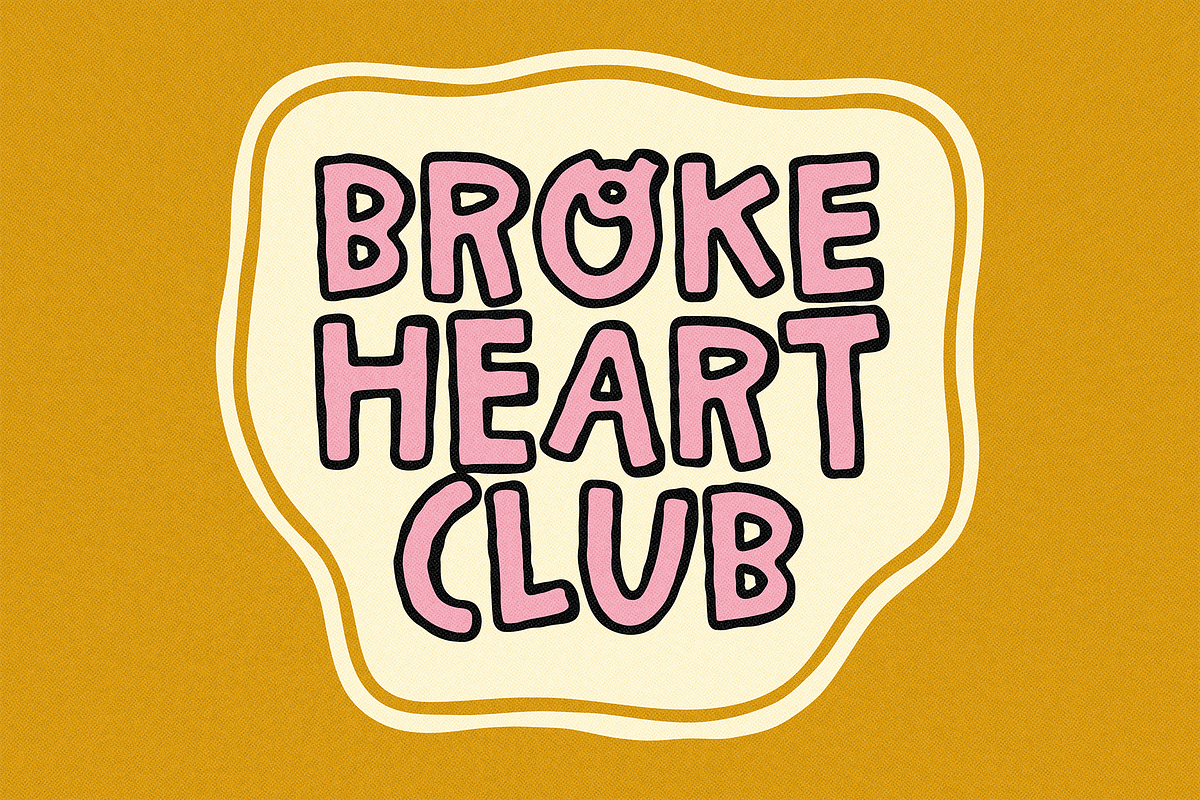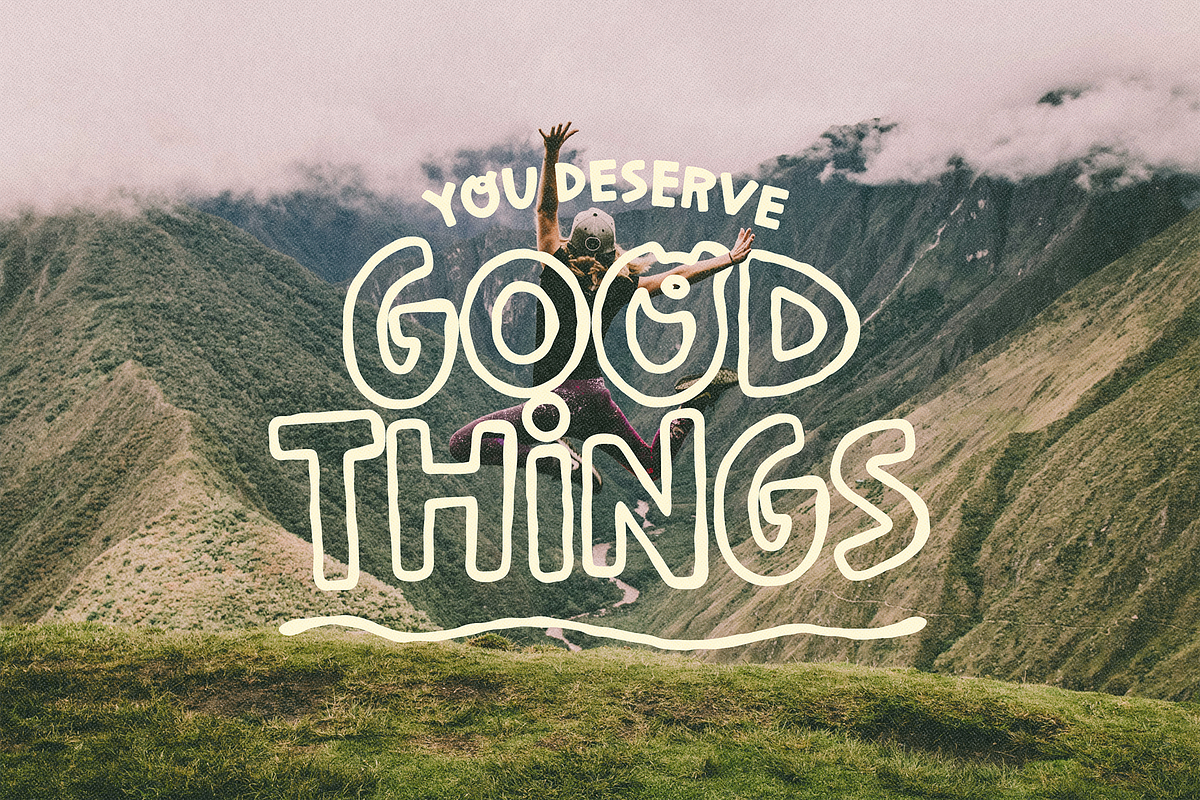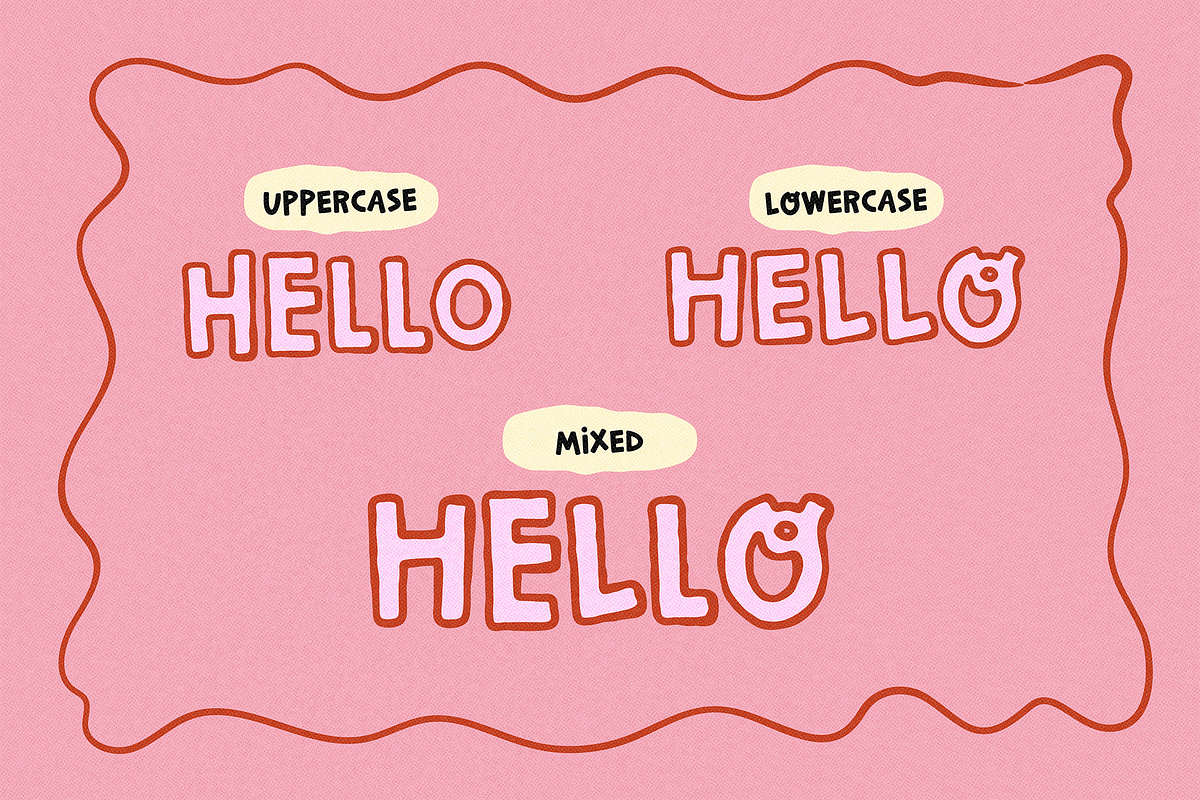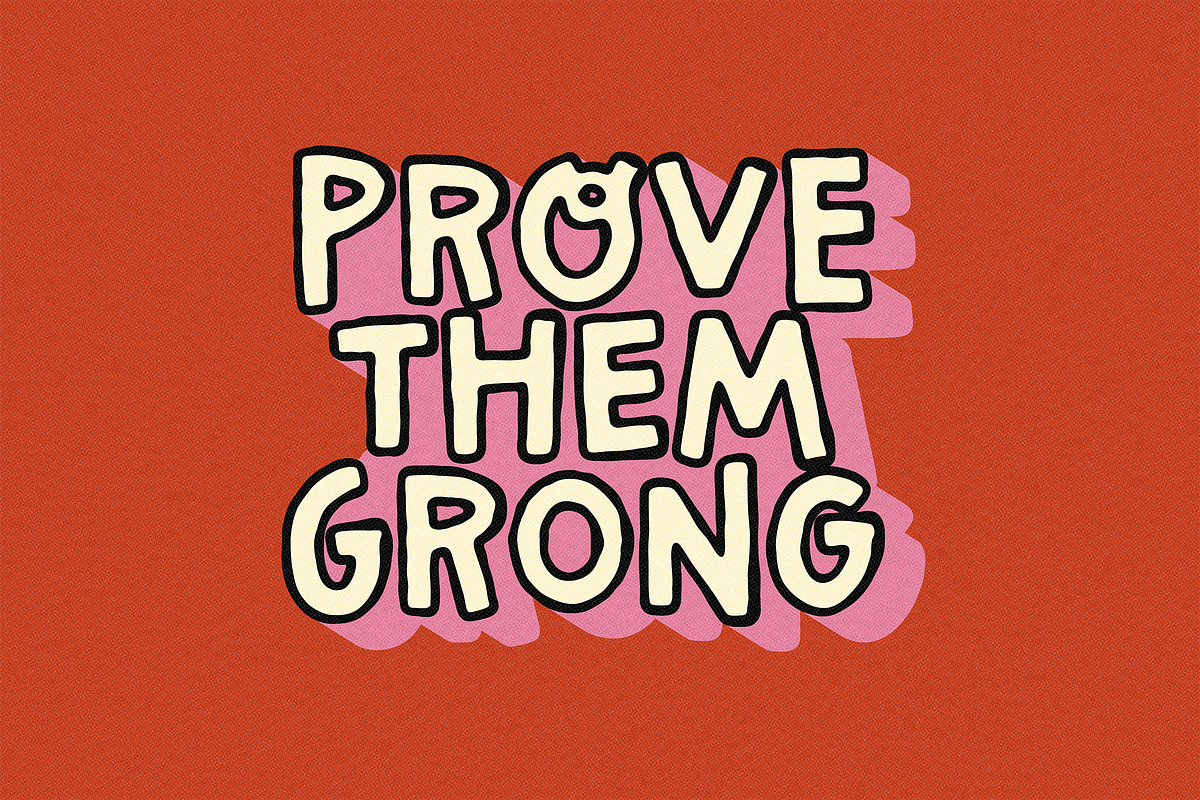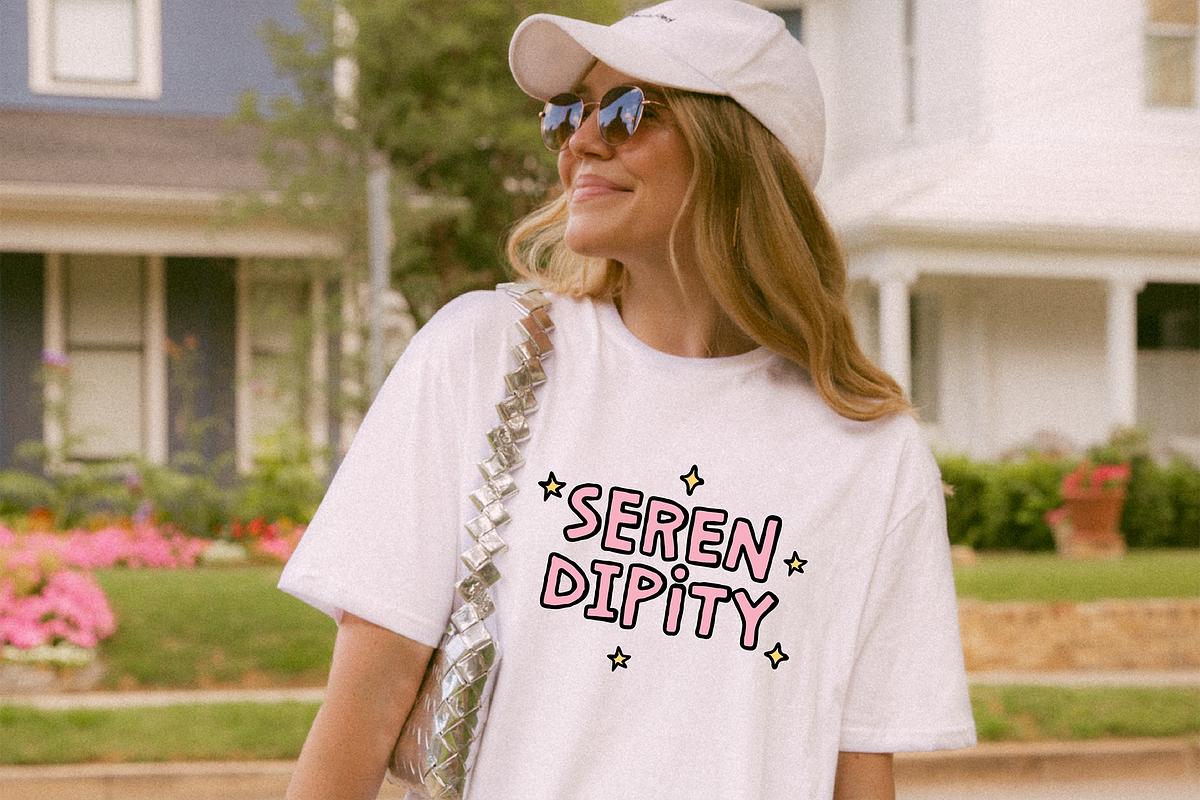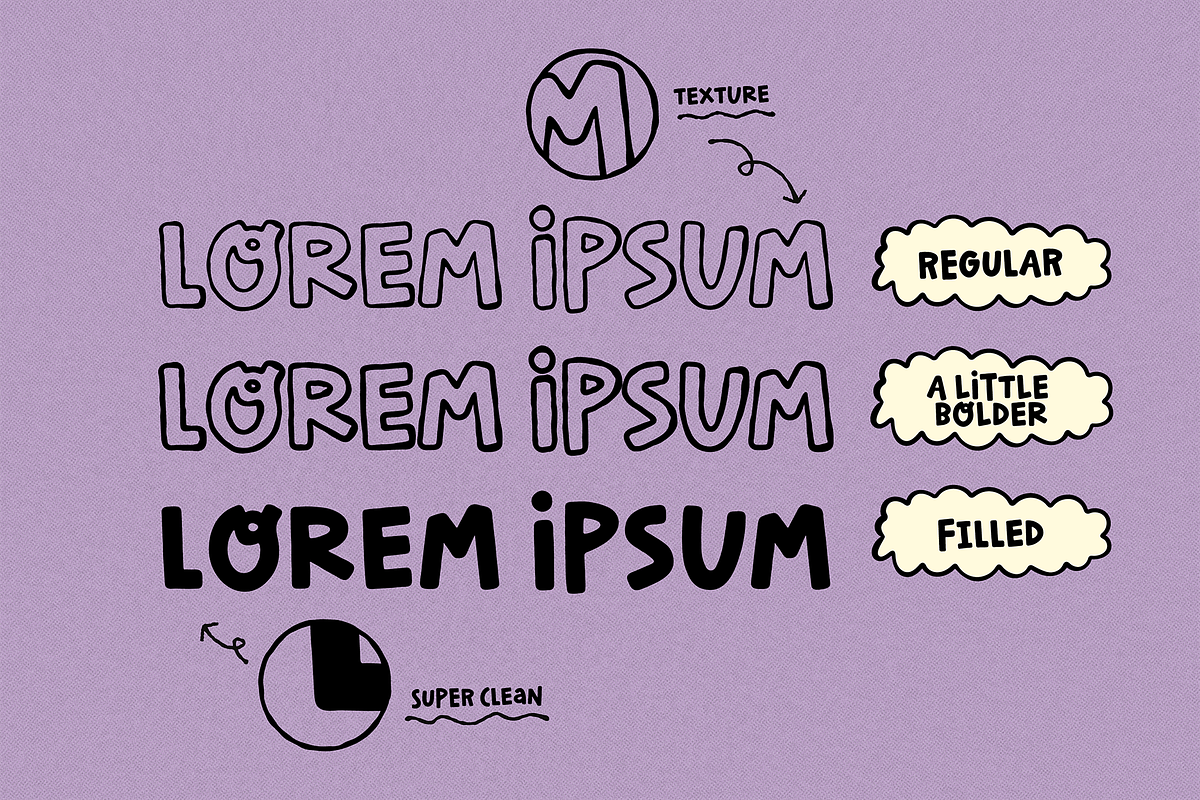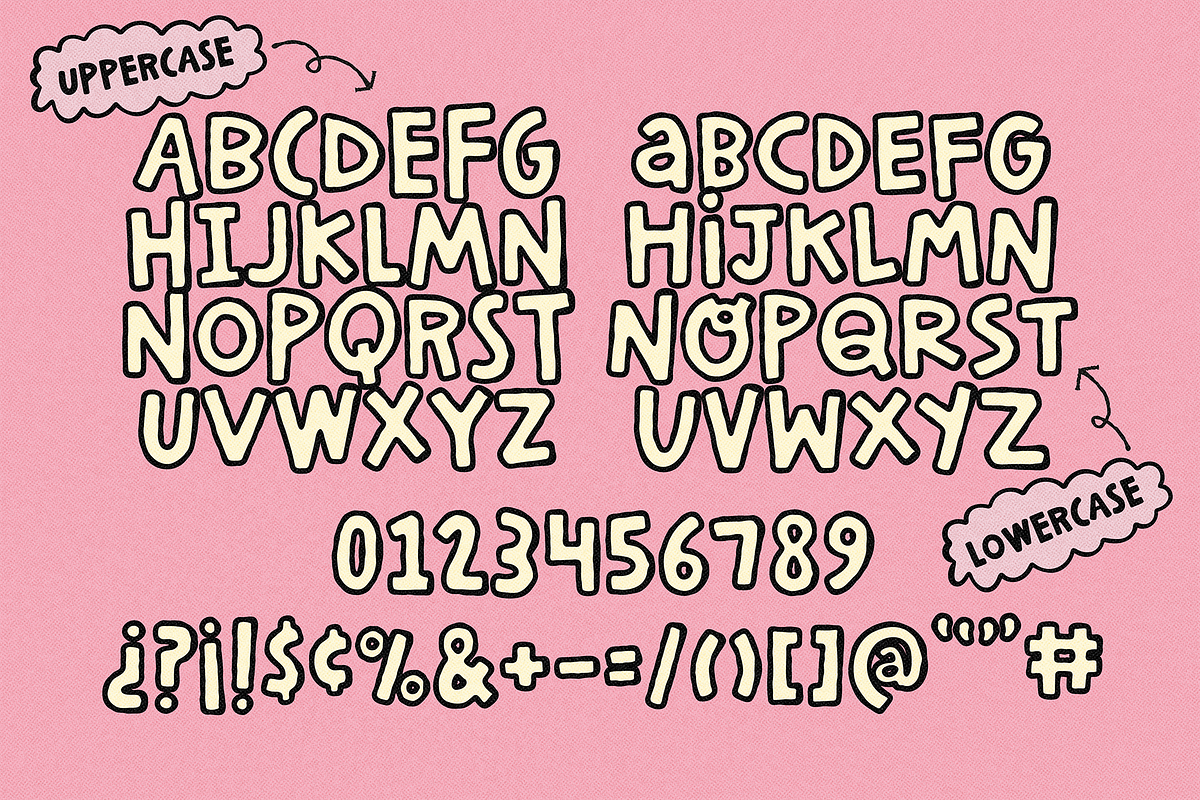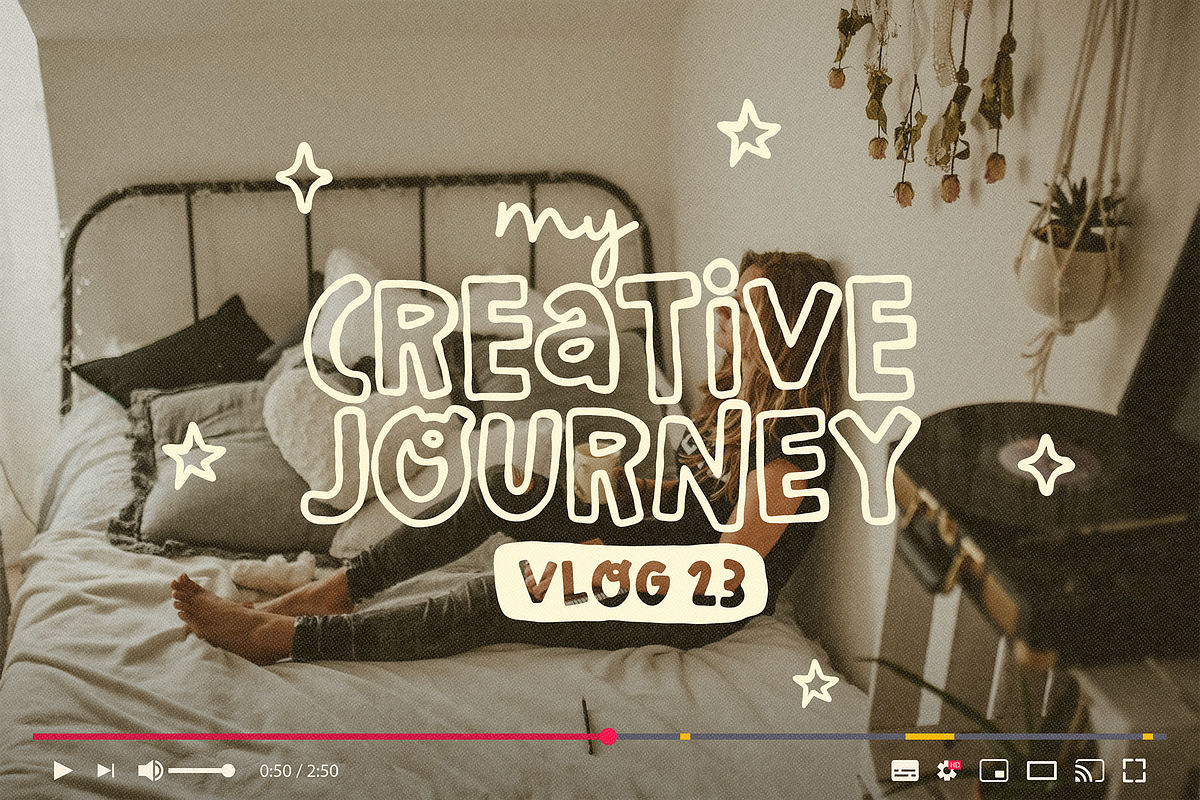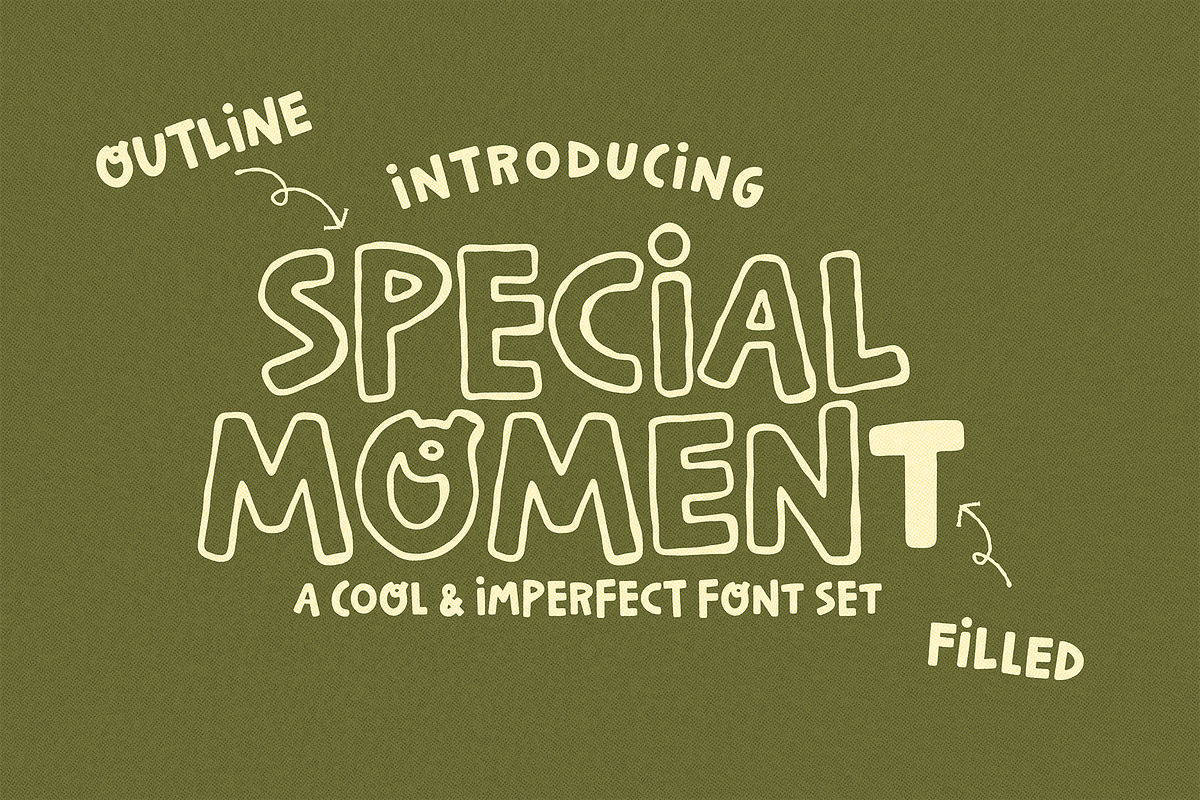
SPECIAL MOMENT | COOL & FUN FONT
Special Moment Font – Hand-Drawn, Fun & Organic
Discover "Special Moment," a hand-drawn, playful, and imperfect font set that’s perfect for social media designs and much more. Ideal for YouTube covers, Instagram posts, quotes, stickers, and more!!! Mix uppercase and lowercase letters for unique, organic designs. Includes both outline and fill versions to suit your creative needs. Get creative and make every moment special! (hehehe).
Unleash your creativity with this versatile and fun font!
✷ Use the 5 symbols included to make cute/cool compositions.
- Period Centered · – Heart
- Left curly bracket { – Star 1
- Right curly bracket } – Star/shine 1
- Bar | – Star 2
- Logical not ¬ – Star/shine 2